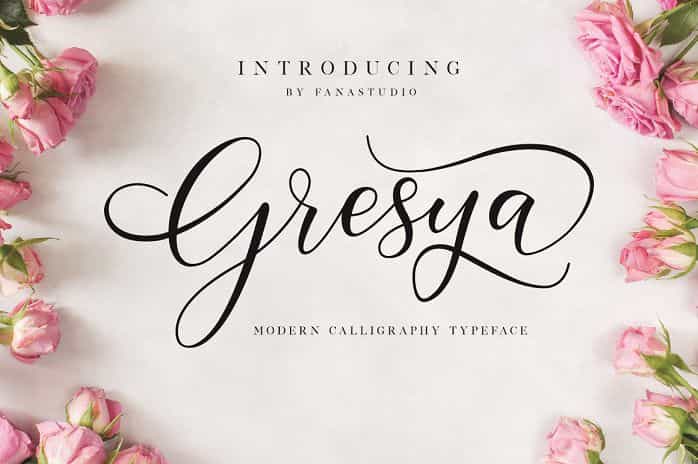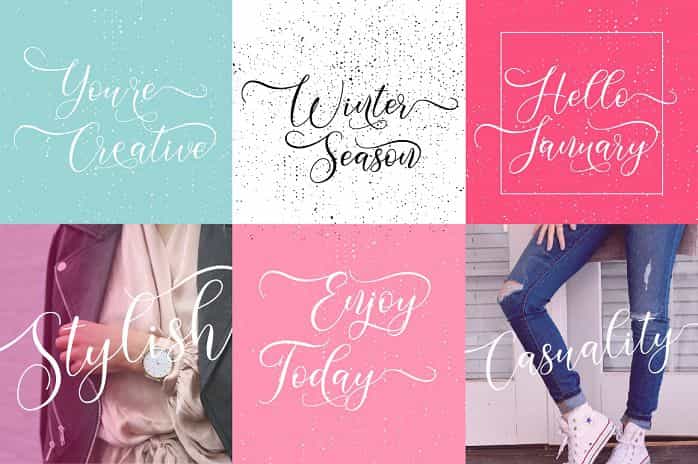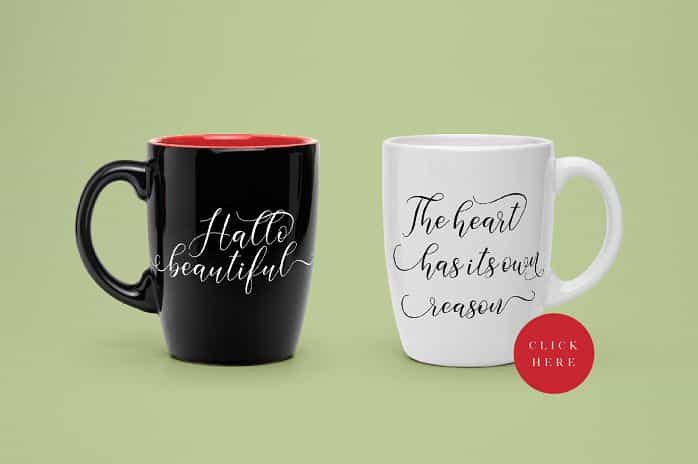
Introducing Gresya Font! Gresya designed by fanastudio. The Gresya is a font style that looks stylish. This lovely script font gives your own touch to your latest art project with the elegance, class and modern look. The Gresya Script, a beautiful typeface perfect for many different projects such as logos & branding, invitation, stationery.